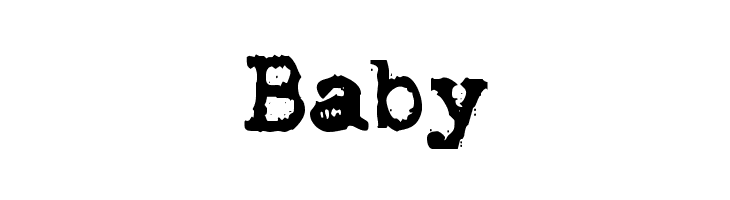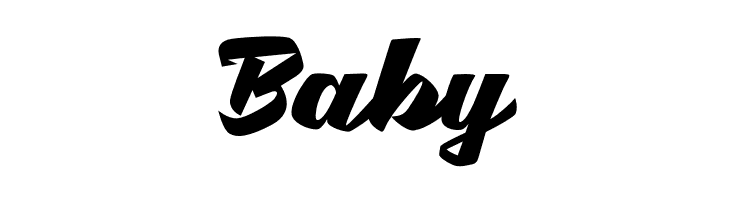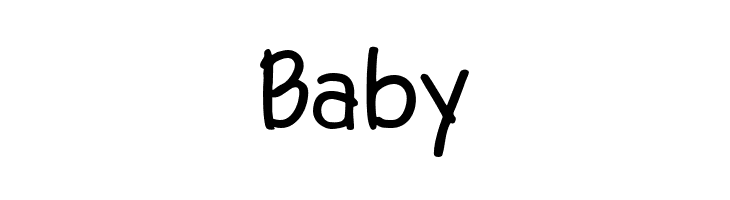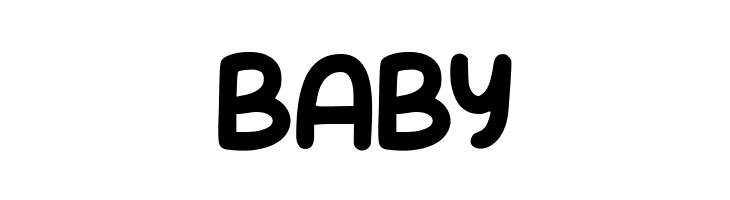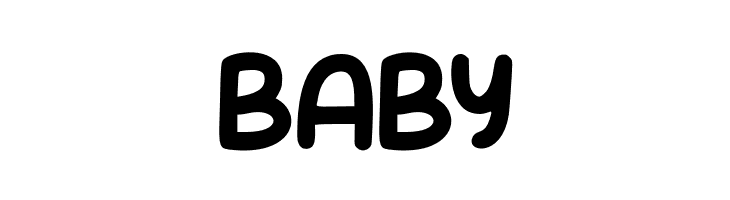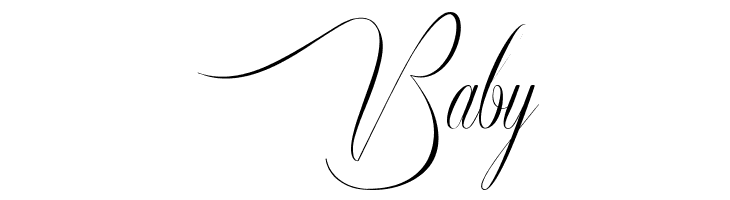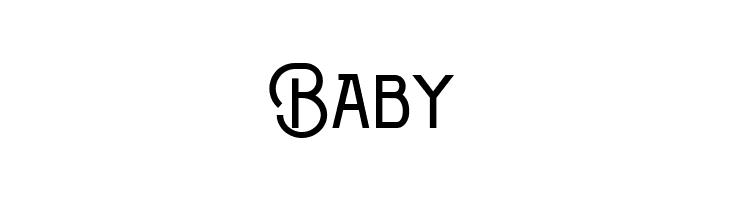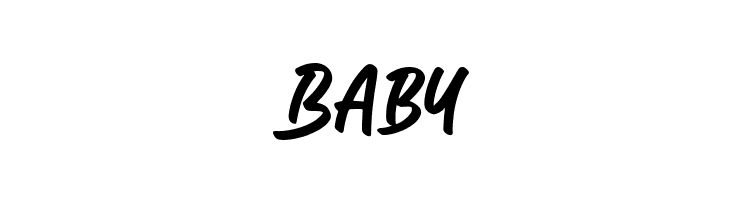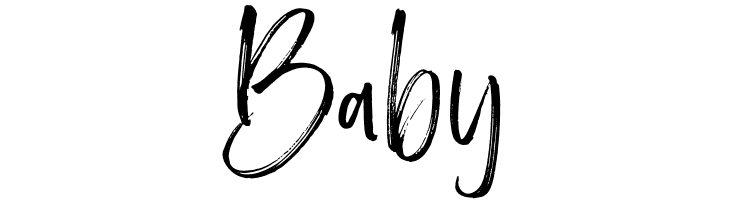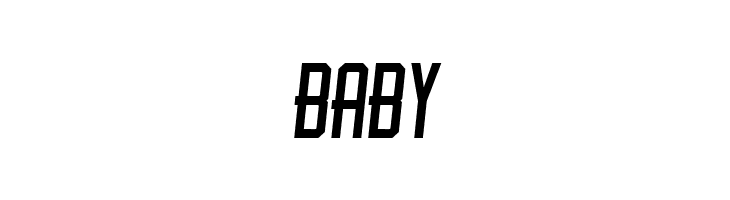
An elegant, high-contrast script font with a classic calligraphic style.
A playful, handwritten font with bold, rounded uppercase and cursive-like lowercase letters.
A bold, playful handwritten font with a modern and energetic style.
A playful, bold font with rounded edges and thick strokes, perfect for creative projects.
A playful, bold font with rounded, thick strokes and a hand-drawn feel.
A bold, playful font with rounded edges and a dynamic slant.
A decorative font with a modern vintage style, featuring playful uppercase and clean lowercase letters.
A bold, geometric stencil-style font with a modern industrial look.
A bold, playful font with rounded characters and a dynamic style.
A bold, textured font with a vintage, distressed style.
A bold, dynamic script font with a strong, handwritten style.
A bold, dynamic script font with flowing, cursive letterforms.
A graceful script font with flowing, connected strokes and a classic, elegant style.
A playful, looping handwritten-style font with interconnected characters.
A playful, flowing script font with smooth, rounded characters.
A bold, distressed typewriter-style font with a vintage, grunge aesthetic.
A playful, bold font with rounded edges and a hand-drawn look.
A bold, expressive handwritten font with dynamic, brush-like strokes.
A playful, handwritten font with rounded edges and uniform strokes.
A playful, hand-drawn font with rounded, uniform letterforms.
A dynamic script font with elegant curves and sharp edges, perfect for creative projects.
A cursive, calligraphic font with elegant, flowing strokes.
A bold, hollow, geometric font with a futuristic aesthetic.
A graceful and fluid script font with elegant, flowing strokes.
A graceful, cursive script font with an elegant italic slant.
A dynamic, expressive handwritten font with fluid cursive letterforms.
A bold, expressive script font with playful, interconnected strokes.
A bold, expressive handwritten font with dynamic strokes and a brush-like texture.
A dynamic, cursive script font with a handwritten feel.
A bold, dynamic brush font with an energetic, hand-painted style.
A bold, handwritten font with a dynamic and energetic style.
An elegant script font with flowing, interconnected letters and a classic calligraphic style.
A dynamic handwritten font with elongated, fluid letterforms.
A modern, cursive script font with elegant, flowing lines.
A bold, italicized font with angular lines and a modern, dynamic slant.